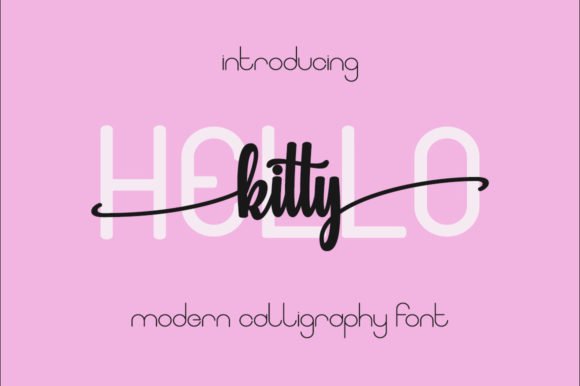
The Purrfect Addition to Your Design: Hello Kitty Font
Have you ever been browsing through a cute stationery store and seen a font that makes you swoon? For me, it was the Hello Kitty Font that caught my eye. As a designer, I’m always on the lookout for that special something to make my projects stand out, and this font is the epitome of cuteness and elegance.
Meet the Hello Kitty Font, a romantic and sweet calligraphy typeface that’s designed to add a touch of luxury to any design project. With its dancing characters along the baseline, this font is sure to bring a smile to anyone’s face. What’s more, it’s PUA encoded, making it easy to access all the amazing glyphs and ligatures that come with it. Whether you’re designing a wedding invitation, a children’s book, or a social media campaign, the Hello Kitty Font is the perfect addition to take your design to the next level.
Hello Kitty Font Key Features
- Font Family: The Hello Kitty font family includes various styles, such as Hello Kitty, Hello Kitty Bold, Hello Kitty Italic, and Hello Kitty Bold Italic.
- Unique Characteristics: The Hello Kitty font features a distinctive, cursive design with rounded edges and a playful, childlike feel.
Hello Kitty Font Review
The Hello Kitty Font is a cute and playful typeface that brings a smile to your face. ✨ It’s perfect for creating whimsical designs, adding a touch of nostalgia, or making your branding stand out in a crowded market. The font is highly customizable, allowing you to adjust its size, color, and style to fit your design needs.
Here are some of the font’s key features:
- Perfect for whimsical designs and nostalgic themes
- Works well with various design styles
- May not be suitable for formal or professional designs
- Can be overwhelming if used excessively
Overall, the Hello Kitty Font is a fun and creative typeface that can add a touch of magic to your designs. While it may have some limitations, its versatility and customizability make it a great choice for designers looking to create unique and eye-catching designs.
For best results, use the Hello Kitty Font in conjunction with bright, playful colors and bold graphics. Experiment with different font sizes and styles to add visual interest to your designs.
The Hello Kitty Font is ideal for children’s birthday parties, nursery decorations, and other fun, whimsical designs. It’s also great for adding a touch of playfulness to social media graphics and advertisements.
Alternatives to Hello Kitty Font for Designers
Pacifico is a beautiful, elegant script font that is perfect for creating a whimsical and playful atmosphere. It’s ideal for use in branding, advertising, and packaging designs where a touch of sophistication is needed. Pacifico has a more refined look compared to Hello Kitty Font, making it suitable for a wider range of applications.
Great Vibes is a modern, cursive font that exudes a sense of relaxation and friendliness. It’s perfect for use in designs that require a laid-back, casual vibe, such as social media graphics, blog posts, and event invitations. While Great Vibes has a similar playful feel to Hello Kitty Font, it’s more versatile and can be used in a variety of contexts.
Lobster is a fun, informal font that is perfect for use in designs that require a touch of humor or playfulness. It’s ideal for use in social media graphics, advertising, and entertainment-related designs where a lighthearted tone is needed. Lobster has a more rough-around-the-edges look compared to Hello Kitty Font, making it suitable for designs that require a bit of edge.